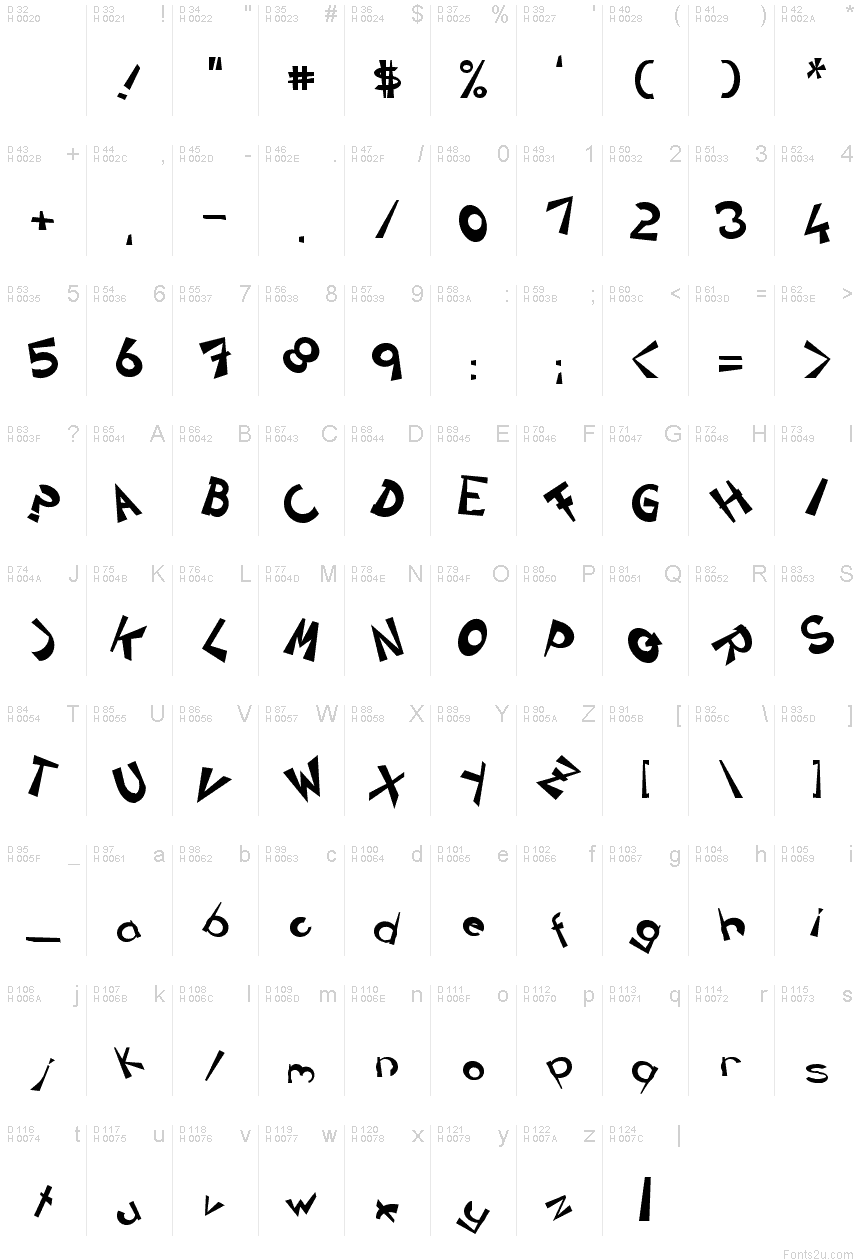
CIRCLINEcrazyjumped Bold
CIRCLINE crazyjumped Bold font by Dieter Schumacher is a free groovy display typeface in the CIRCLINE crazyjumped family. Its letters wobble and tilt like they’ve just landed mid-jump, with chunky brush-like strokes and playful gaps that feel hand-scrawled and a little wild. The rhythm is loose and bouncy, so every word looks like it’s moving across the page, giving headlines an instant sense of mischief and motion.
Using CIRCLINE crazyjumped Bold, you can push posters, party invitations, zines, album covers, kids’ event graphics, and YouTube thumbnails into full-on chaotic fun. This free font shines when it’s big and loud, where the funky angles and uneven spacing become a visual hook rather than background noise. Pair it with a plain, narrow sans-serif for body text to keep everything readable while letting CIRCLINE crazyjumped carry the personality.